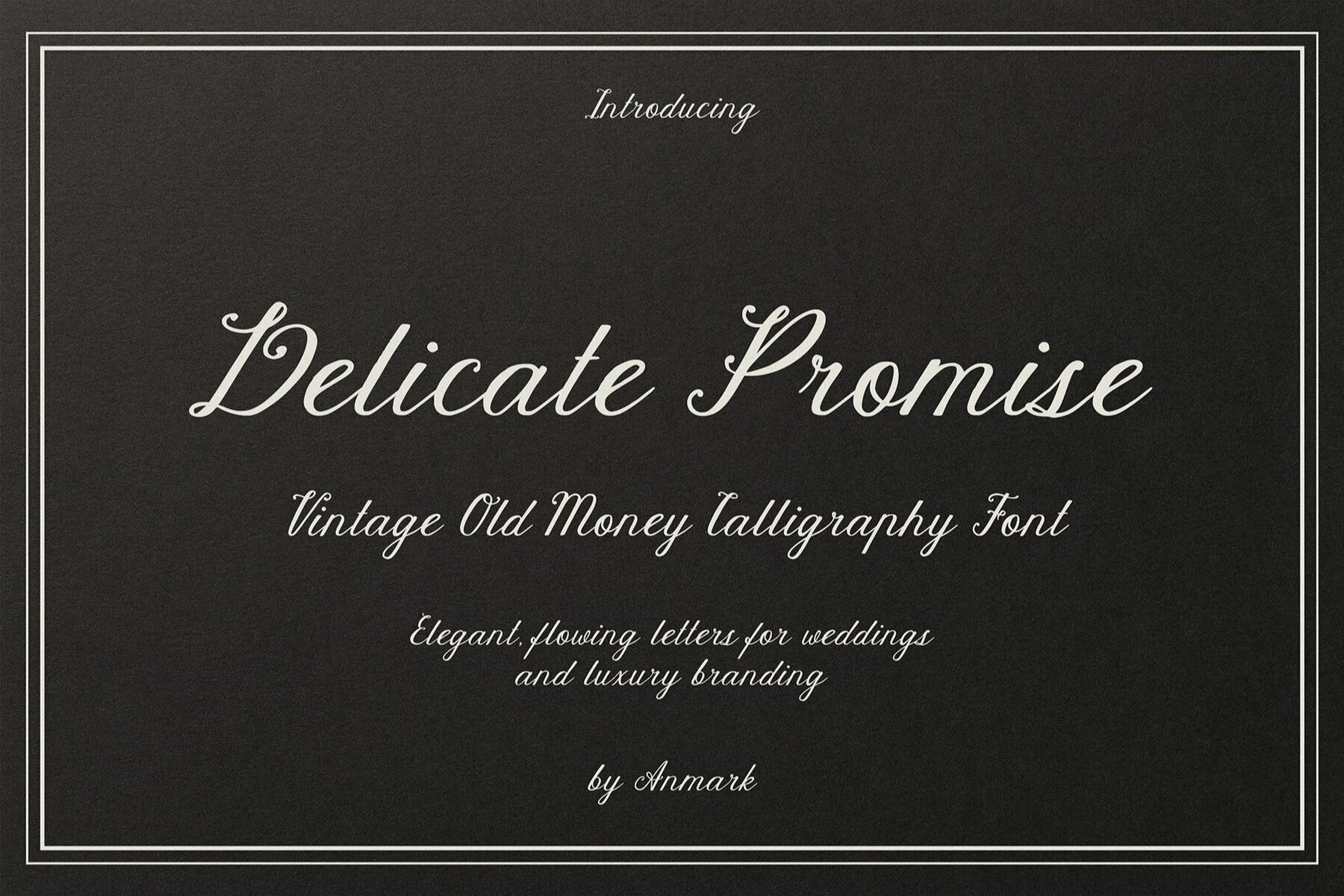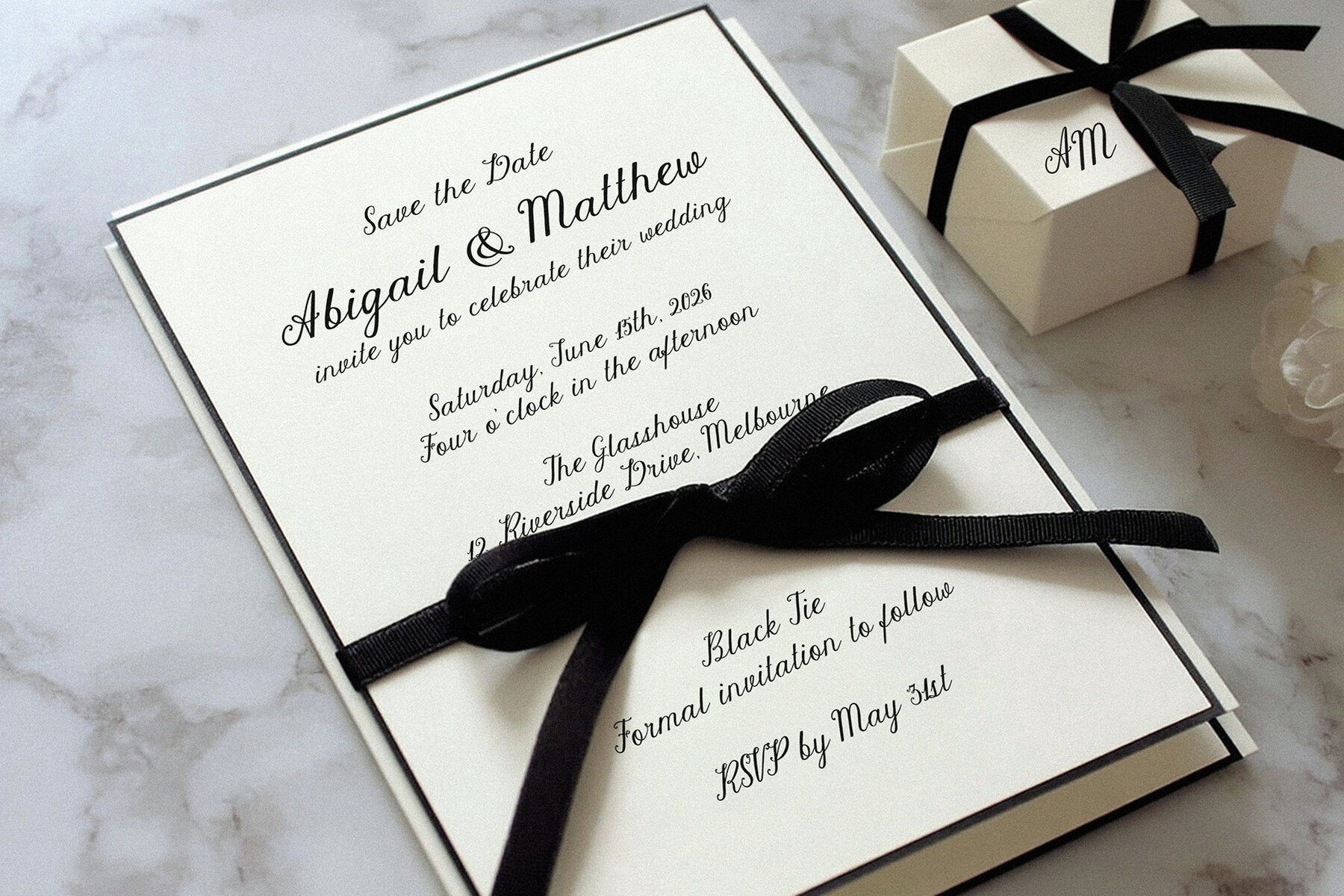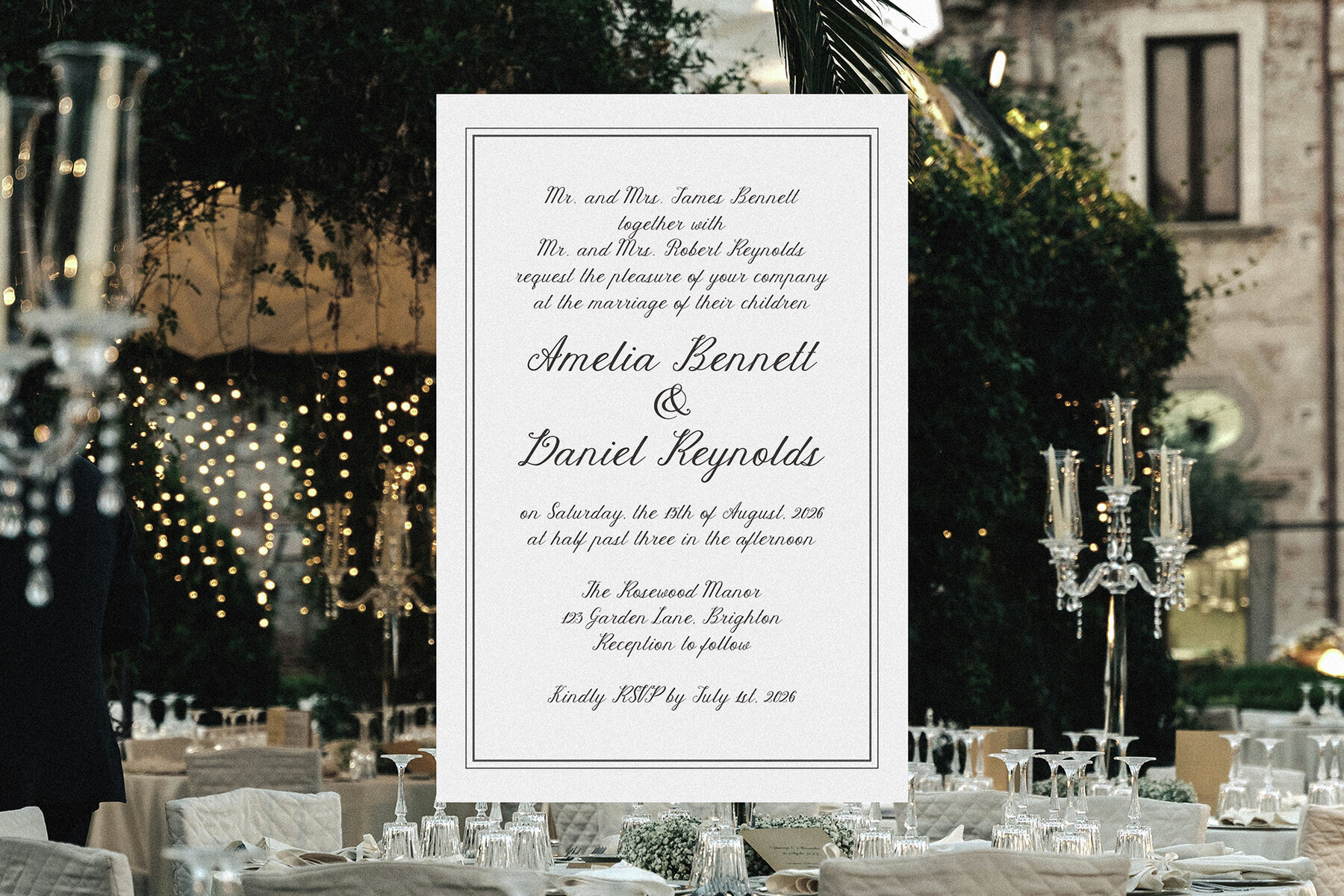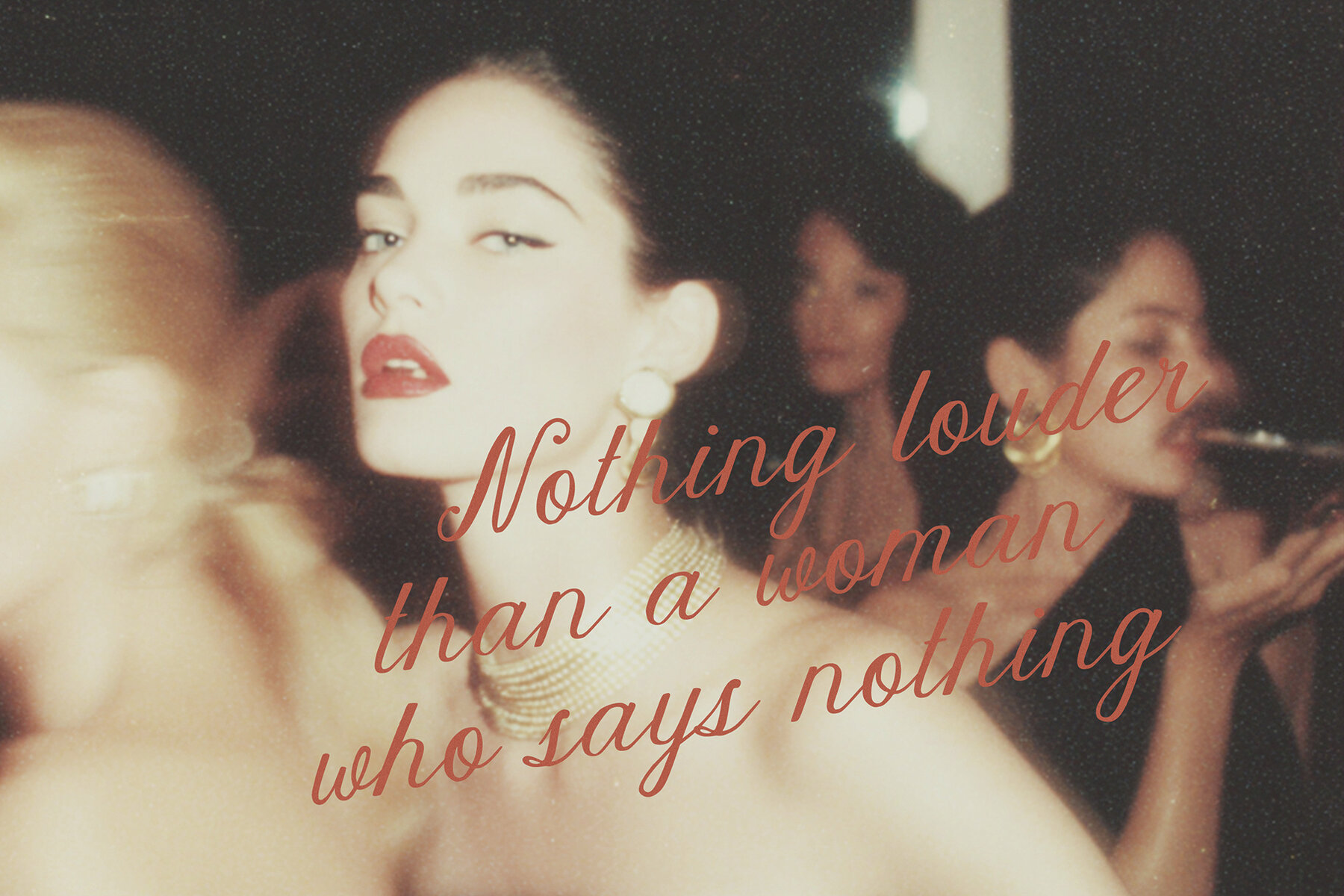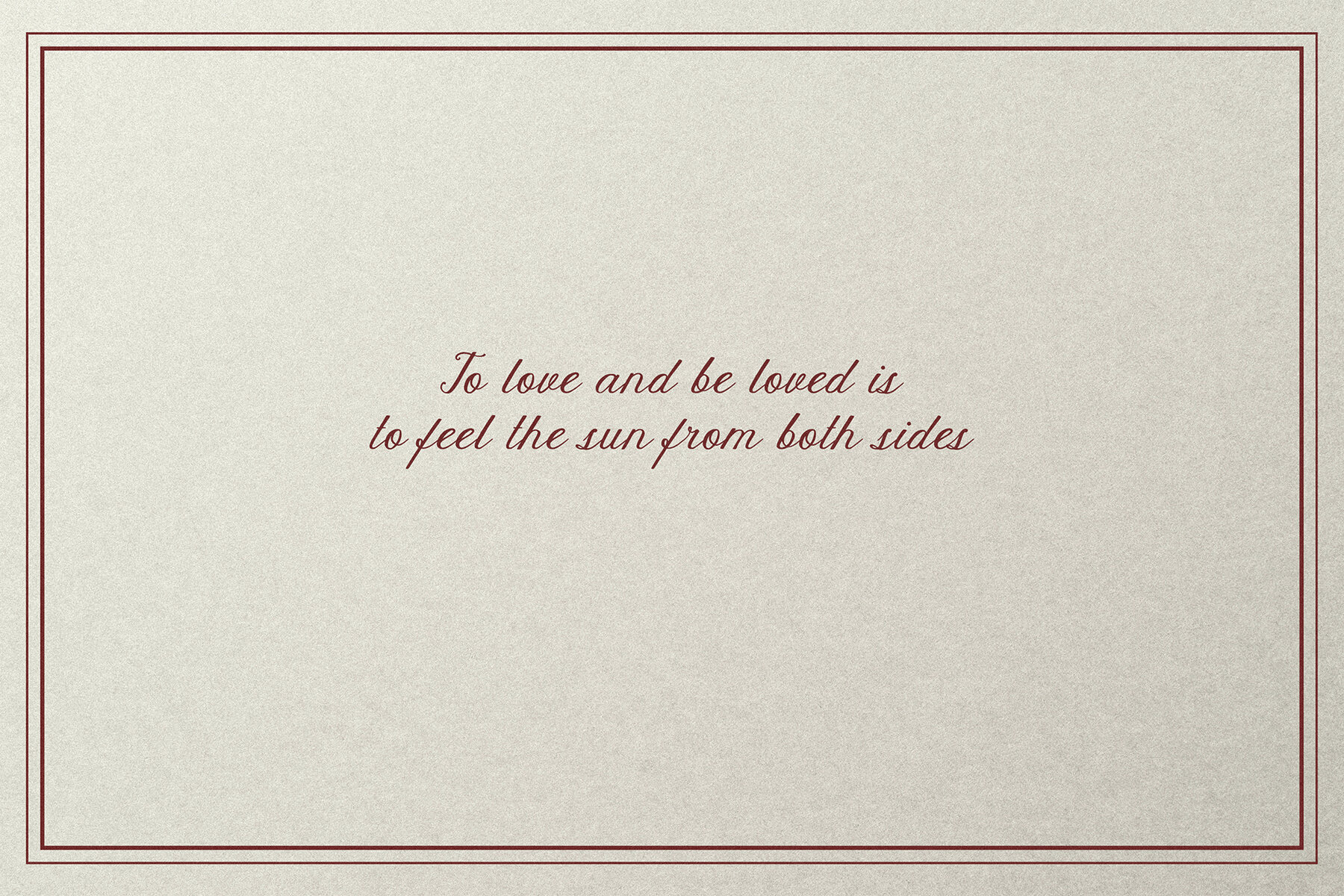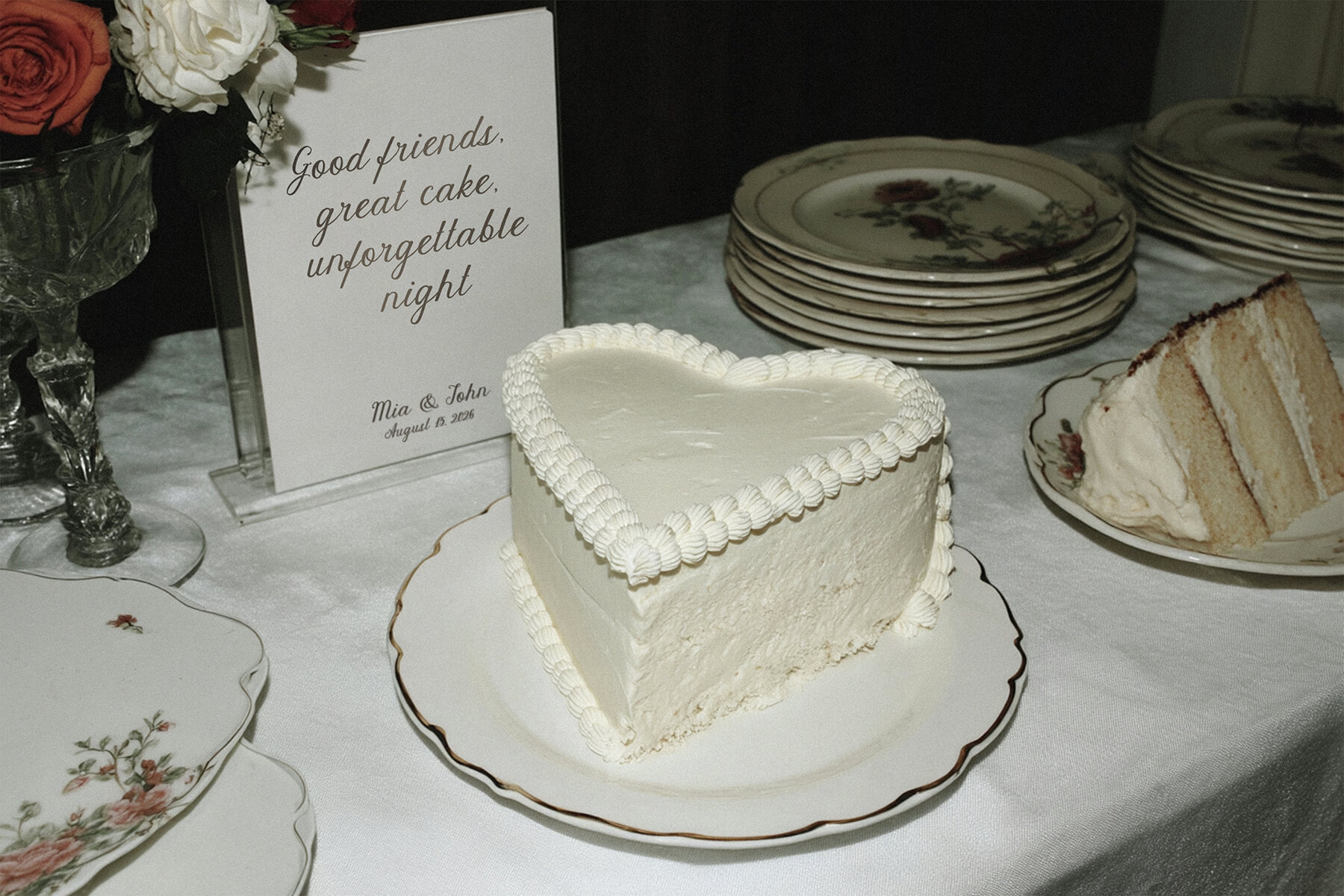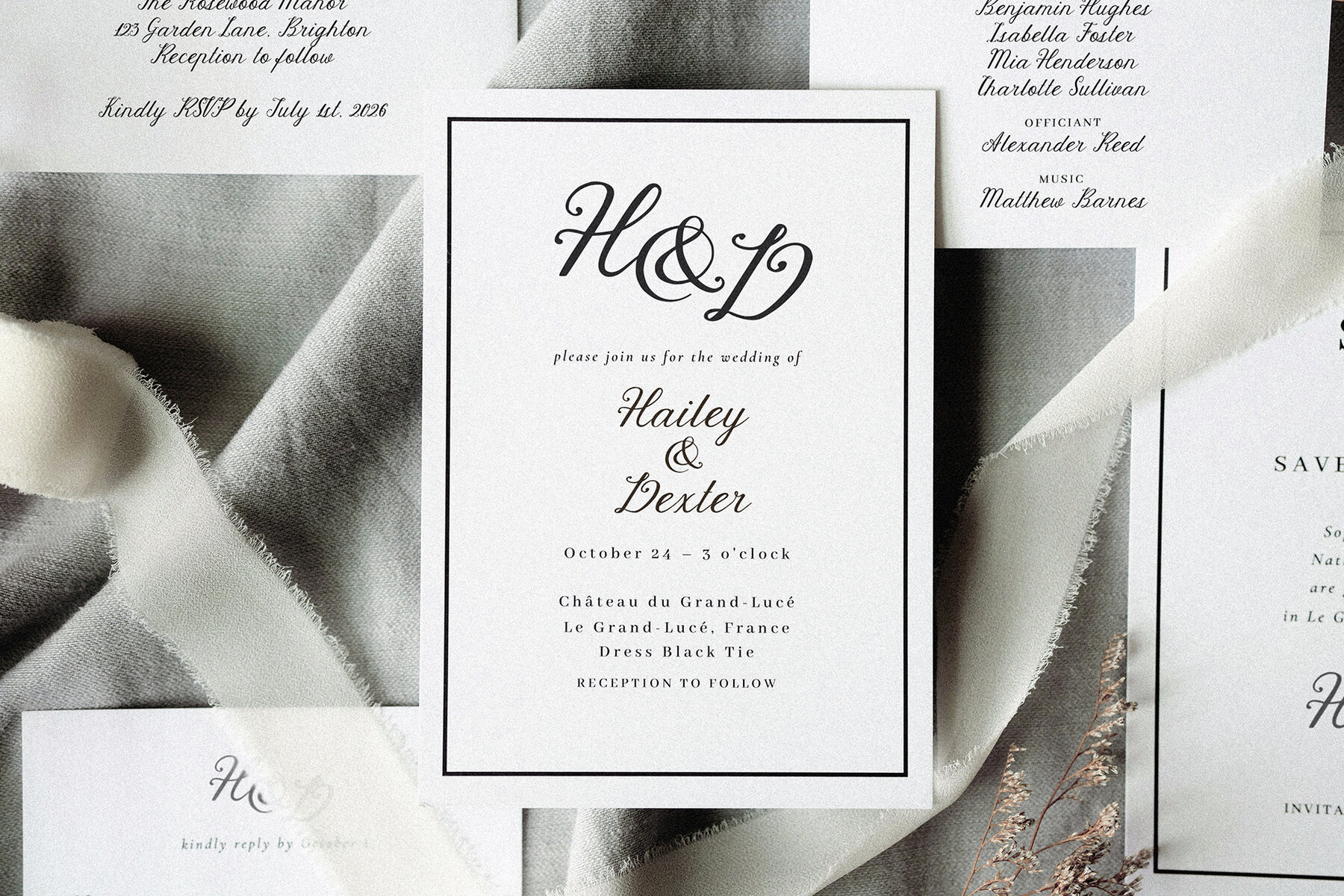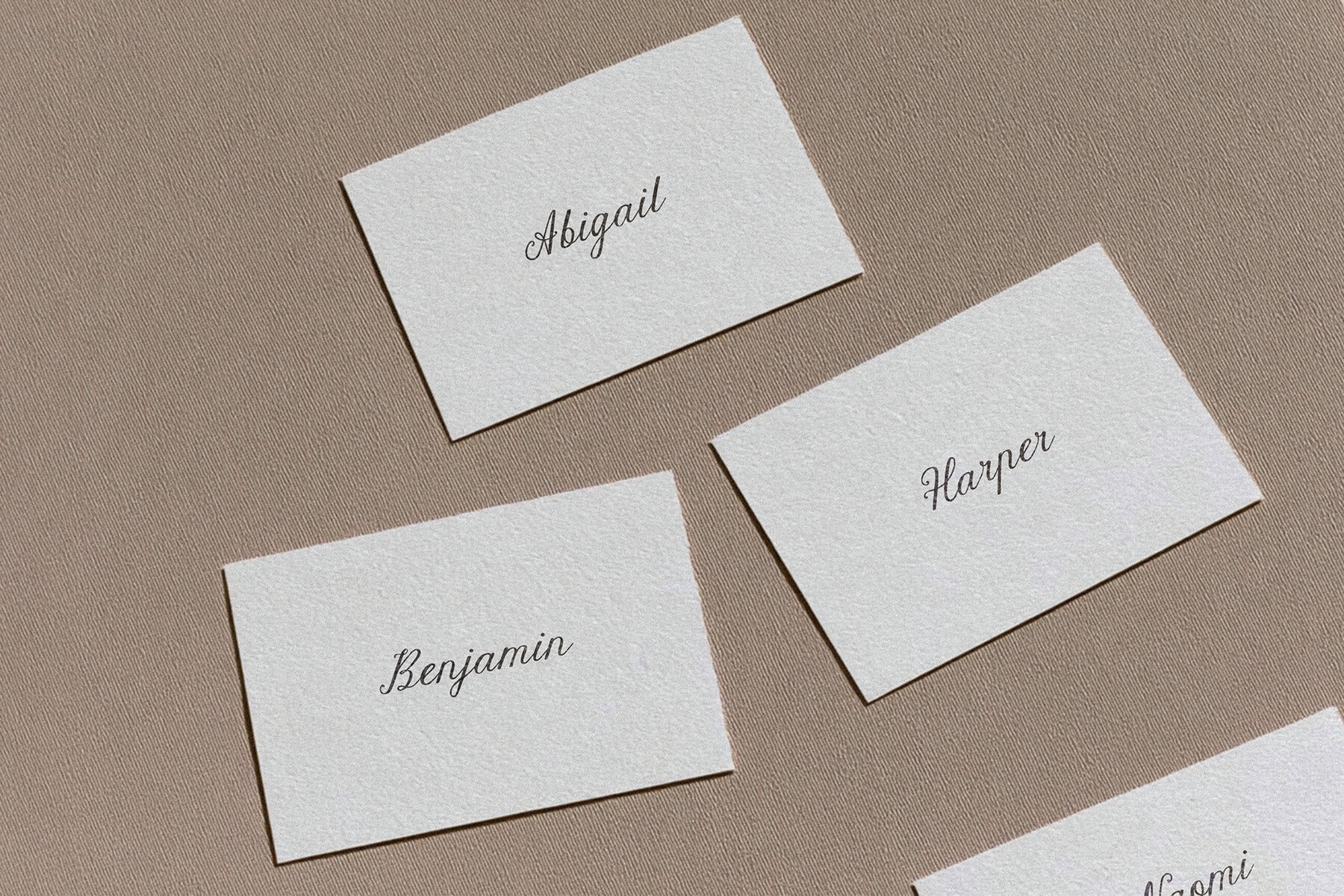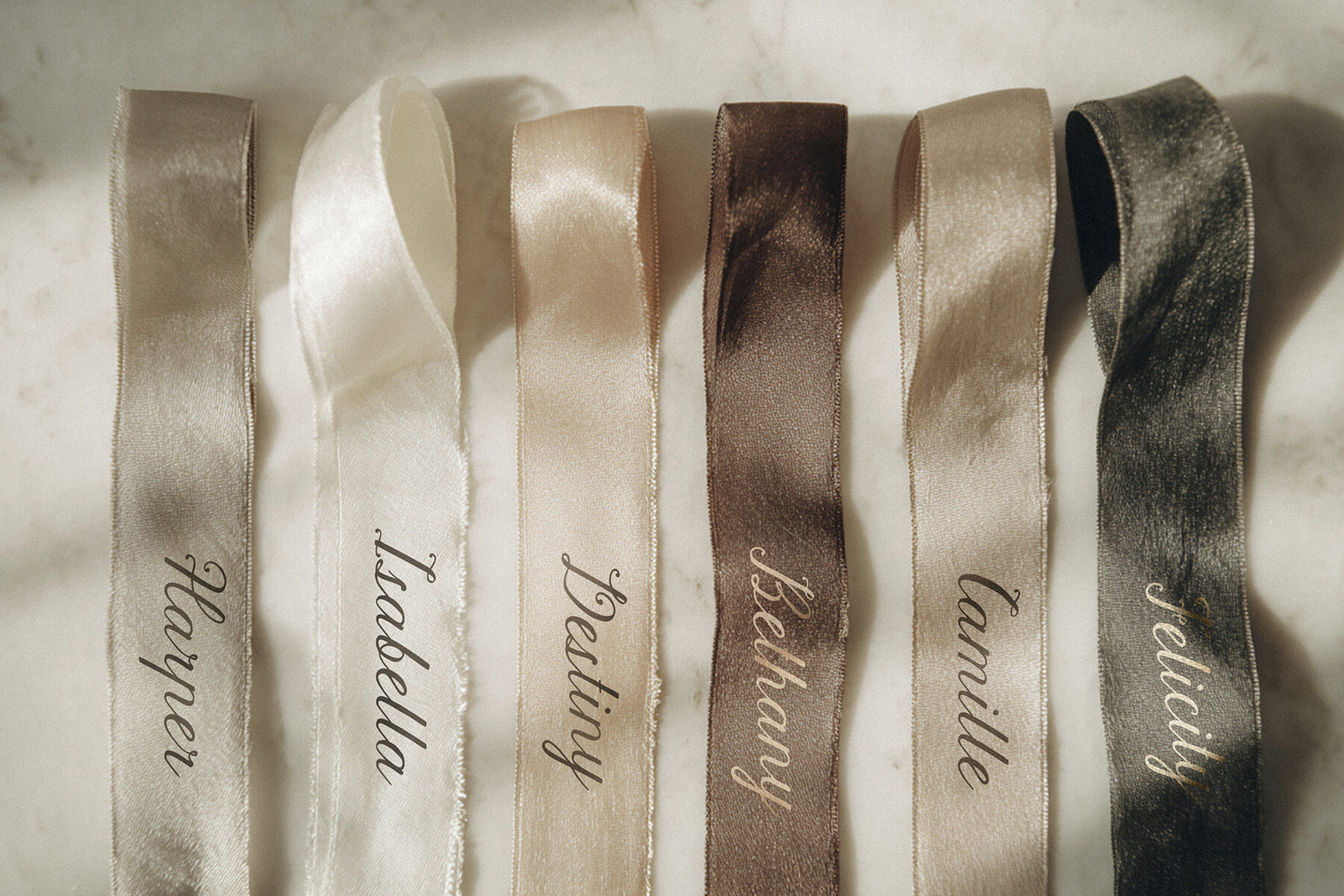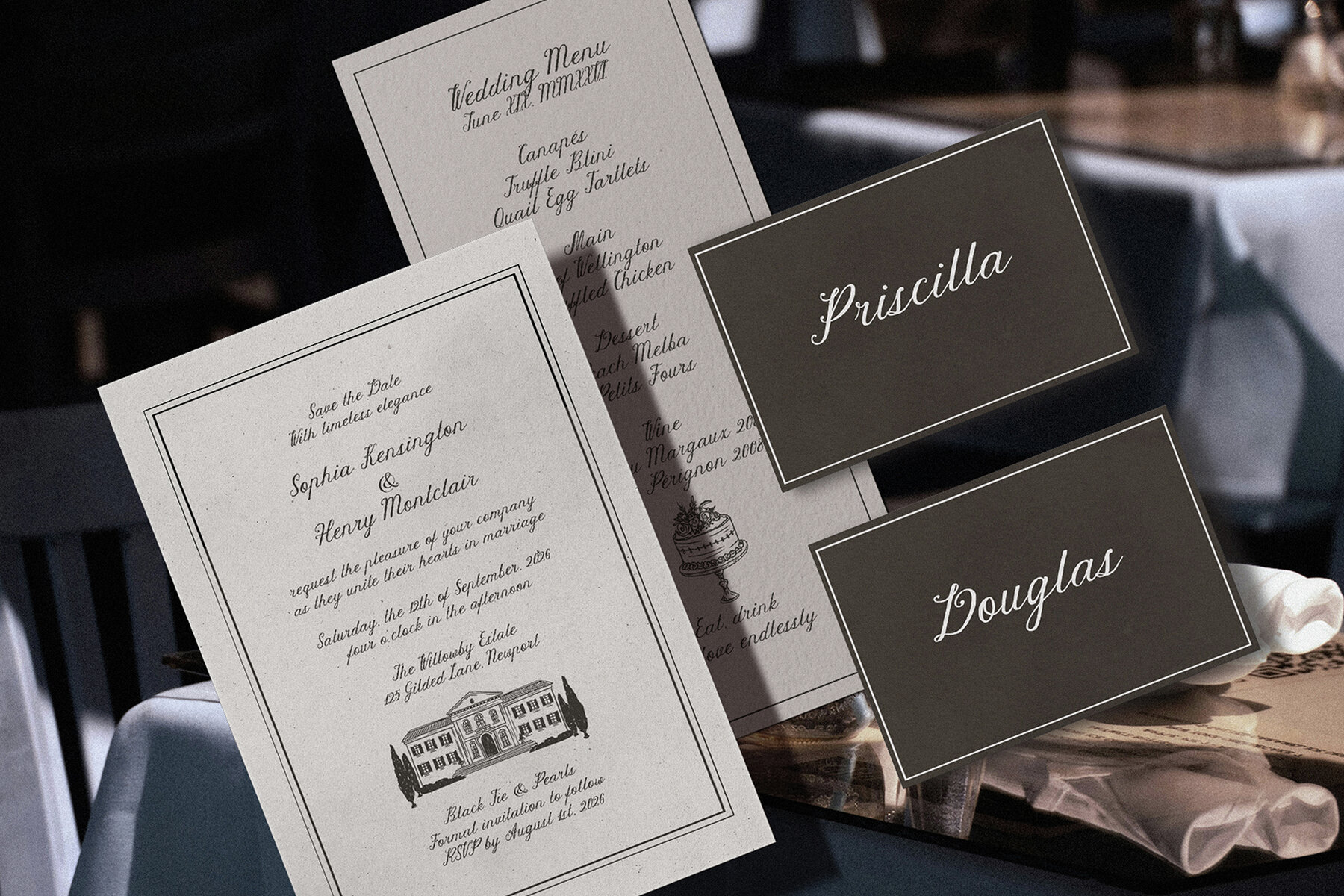
Delicate Promise Font
Delicate Promise
Delicate Promise brings to life the art of handwritten vows and vintage wedding stationery through its fluid script and elegant curves. This font exudes a tenderness reminiscent of quiet moments and meaningful exchanges. Its graceful flow provides a touch of elegance and personality to any creative project. Designed to mimic the texture of ink on fine paper, Delicate Promise offers the charm of a whispered vow. With alternate uppercase letters, it enables subtle variations that enhance the bespoke feel of your designs. Use Delicate Promise for wedding stationery, including invitations, menus, or monograms. It also complements luxury branding such as logos and packaging, as well as vintage book covers and editorial design. This font is perfect for crafting love notes or projects that require a personal, signature style.Delicate Promise: A Graceful Handwritten Script